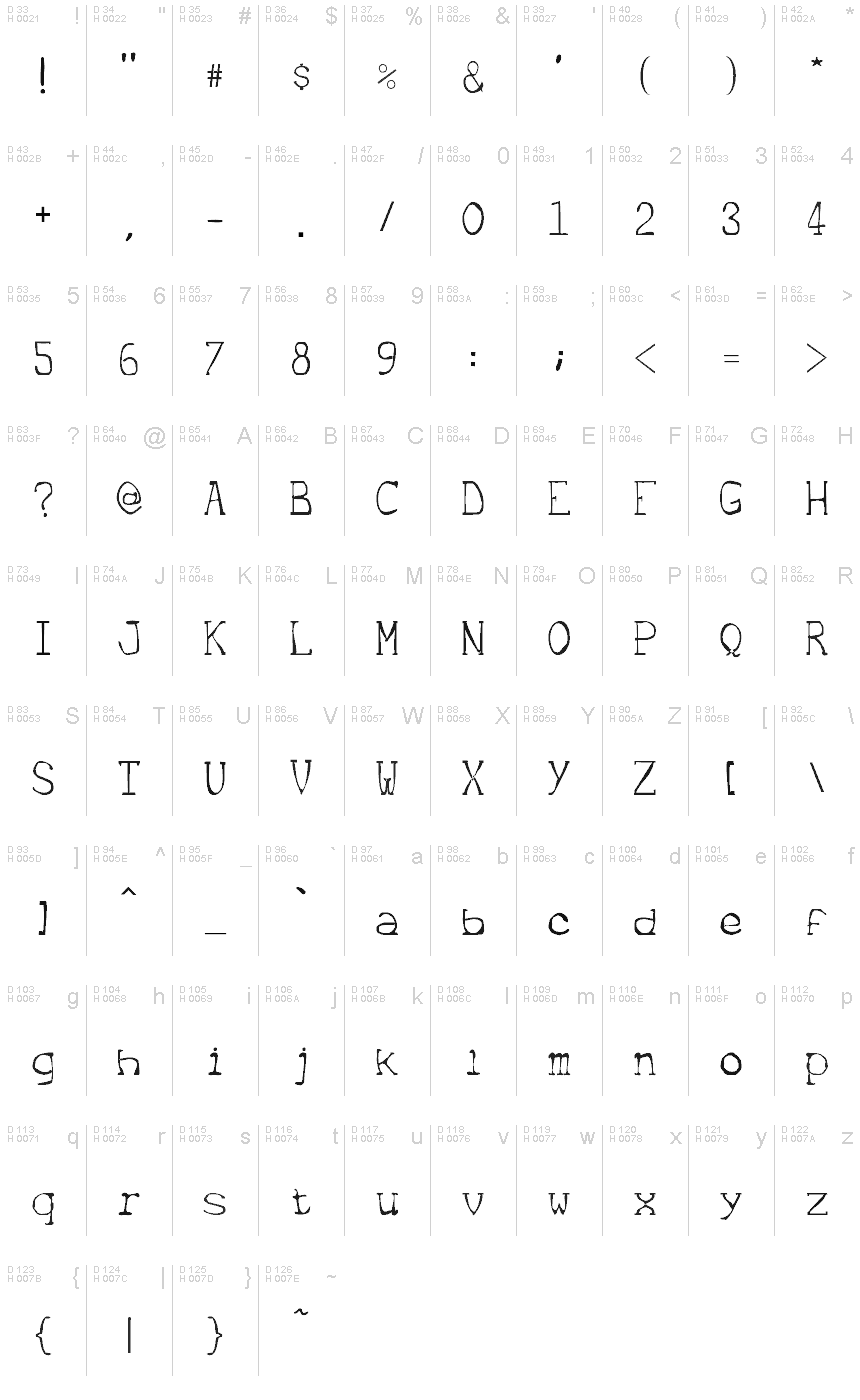
Metrique
Metrique is a striking display font that exudes a captivating sense of distortion and imperfection. Designed by Malre Deszik, this distinctive typeface showcases a raw, handcrafted aesthetic, with each letter seemingly etched in Rotring ink against a dark, moody backdrop. The font's irregular strokes and jagged edges lend it a gritty, industrial vibe, making it well-suited for use in editorial layouts, branding materials, and experimental typography projects that seek to convey a sense of edginess and visual intrigue.
The font's unique character makes it a compelling choice for designers and creatives looking to add a bold, unconventional touch to their work. Its versatility allows it to shine in a variety of contexts, from modern web designs to dynamic event posters, where its distinctive flair can help to captivate and engage the viewer.